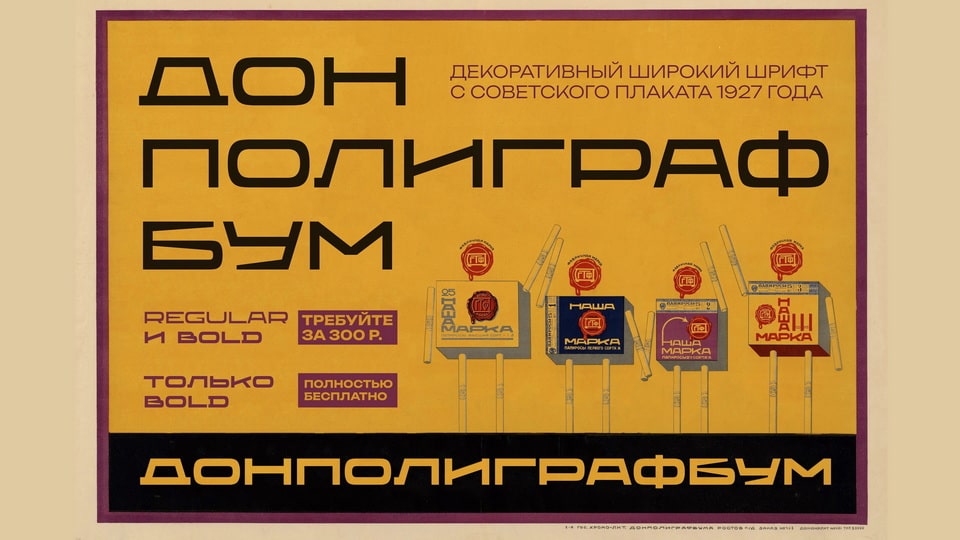
Download Donpoligrafbum font, a bold display typeface inspired by simple and “constructivist” typography. The font has complicated contours and improved visual harmony of the symbols, while maintaining the “constructivist” style.